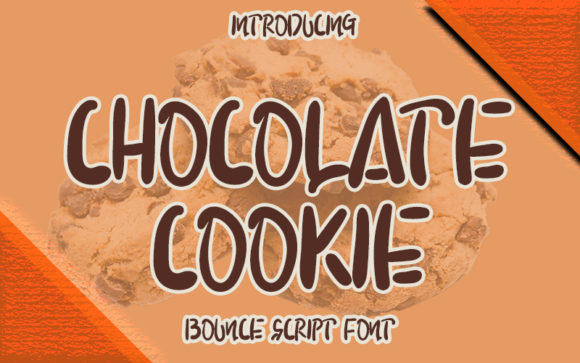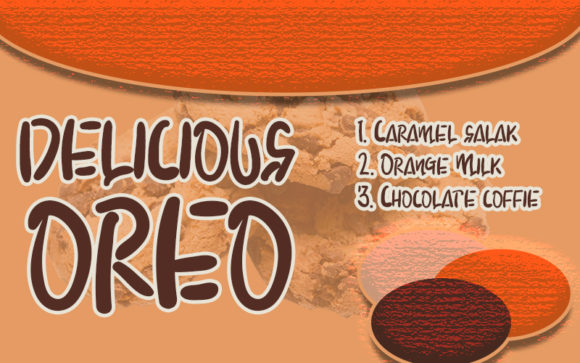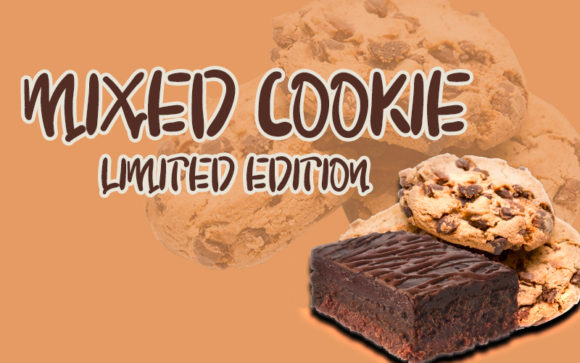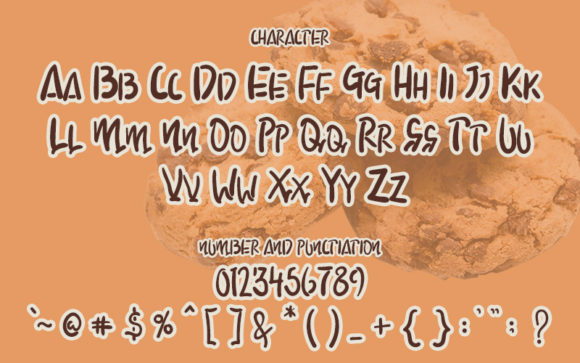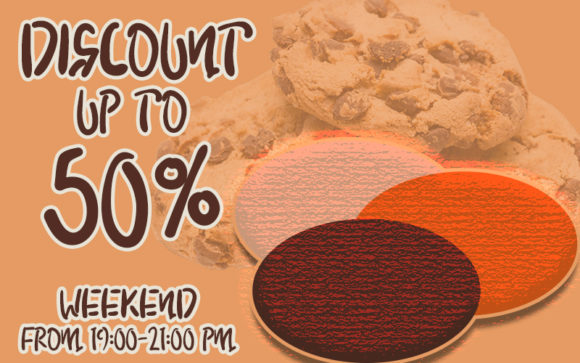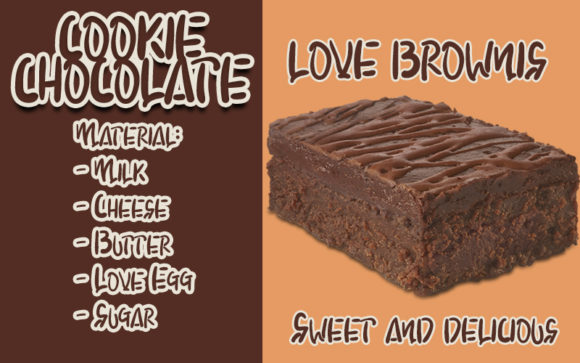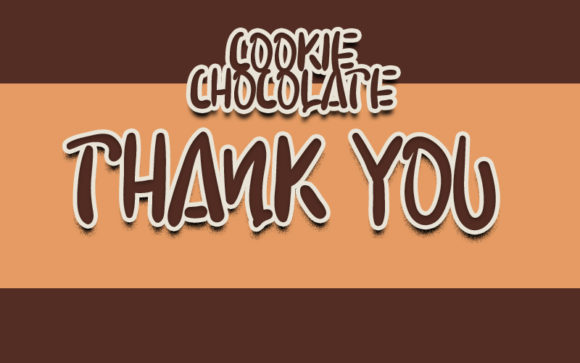
Chocolate Cookie Font
About Chocolate Cookie Font
Chocolate Cookie is a cute and casual handwritten font with an incredibly friendly feel. Use this gorgeous and unique font to bring any DIY project to life!